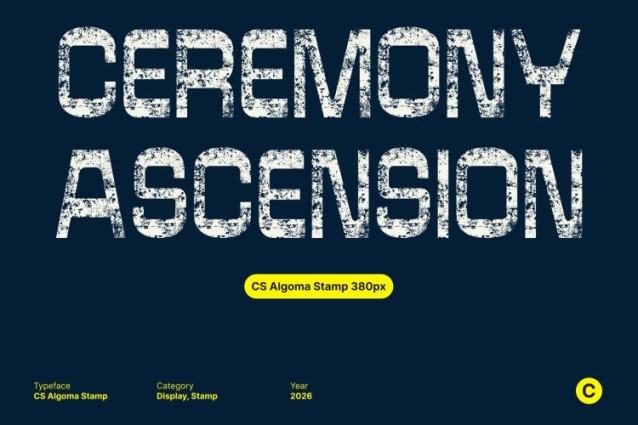
CS Algoma Stamp Font
CS Algoma Stamp Font This is a reverse contrast sans serif display font that blends retro charm with contemporary precision. Its bold geometric shapes and distinctive modular forms create a playful yet structured personality. Enhanced with a subtle stamp effect, the letterforms gain texture and depth, giving the font a vintage, handcrafted character while maintaining modern clarity.
Mid-Century Inspiration with Modern Flair
Drawing from mid-century design and classic signage, this font combines nostalgic aesthetics with a fresh, forward-thinking approach. The reverse contrast letterforms invert traditional expectations, adding visual intrigue and uniqueness. The stamped texture reinforces a retro, tactile feel, making the font expressive and memorable.
Distinctive Letterforms with Clarity and Character
The strong, structured shapes convey confidence and creativity, while balanced proportions ensure legibility across sizes. The stamp effect adds subtle imperfections that enhance the font’s artistic and vintage appeal. Headlines, logos, and posters stand out with clarity, flair, and visual impact.
Ideal for Retro-Modern Branding and Design
Perfect for posters, branding, packaging, editorial layouts, and creative campaigns, this font delivers a bold typographic voice with retro energy and vintage texture. Its fusion of mid-century style, modern precision, and stamped character makes it an excellent choice for designers seeking expressive, memorable, and stylish typography.